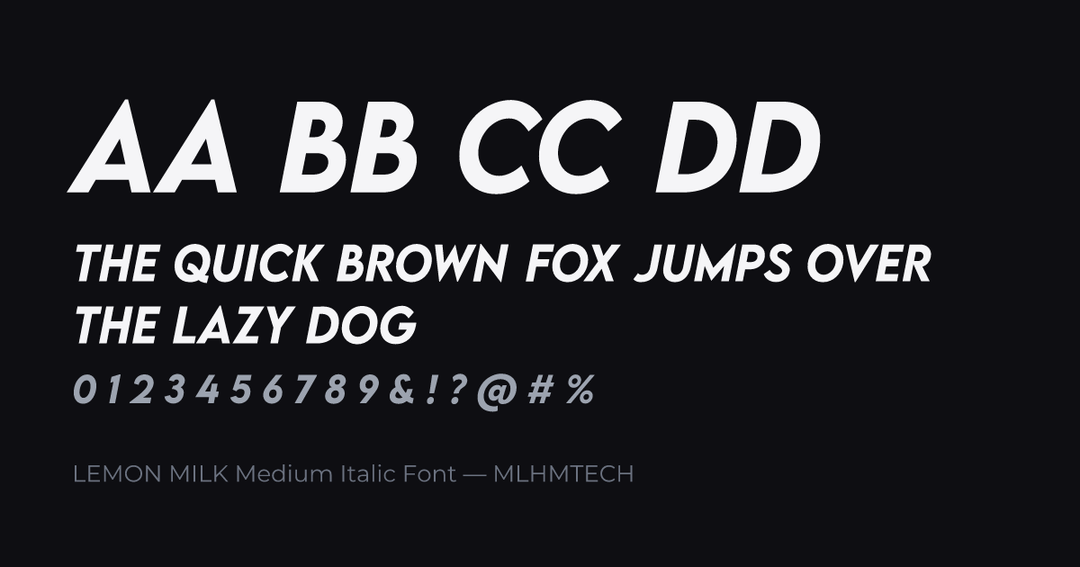
LEMON MILK Medium Italic Font
LEMON MILK Medium Italic is a bold, geometric sans-serif font with a modern, dynamic feel. Ideal for impactful headlines and branding.
LEMON MILK Medium Italic is a distinctive typeface that combines geometric shapes with a subtle slant, giving it a sense of movement and energy. Its medium weight strikes a balance between boldness and elegance, making it versatile for various design projects.
This font is part of the popular LEMON MILK family, known for its clean lines and contemporary aesthetic. The italic version adds a touch of sophistication, perfect for emphasizing key text or creating visual interest in layouts.
Use it for posters, social media graphics, logos, and more. Its legibility at various sizes ensures it works well in both print and digital media.